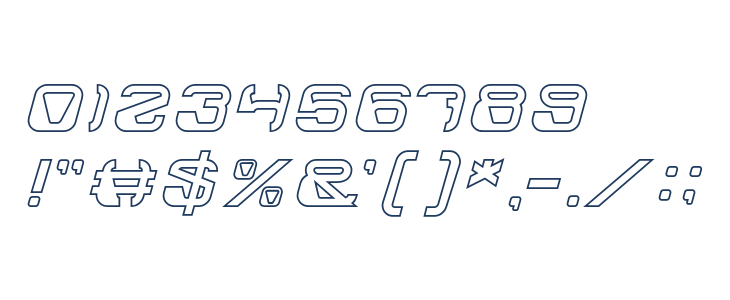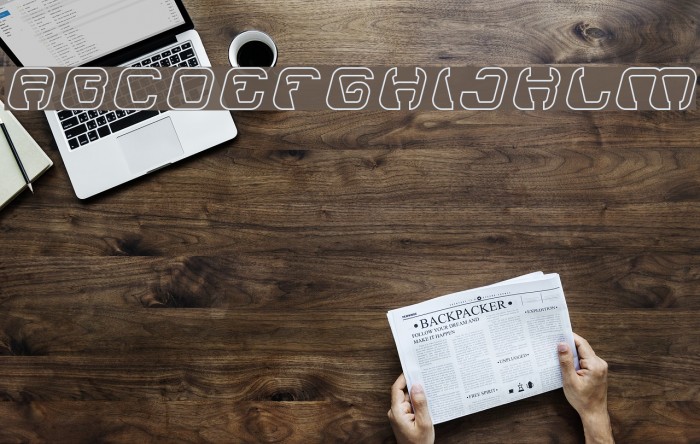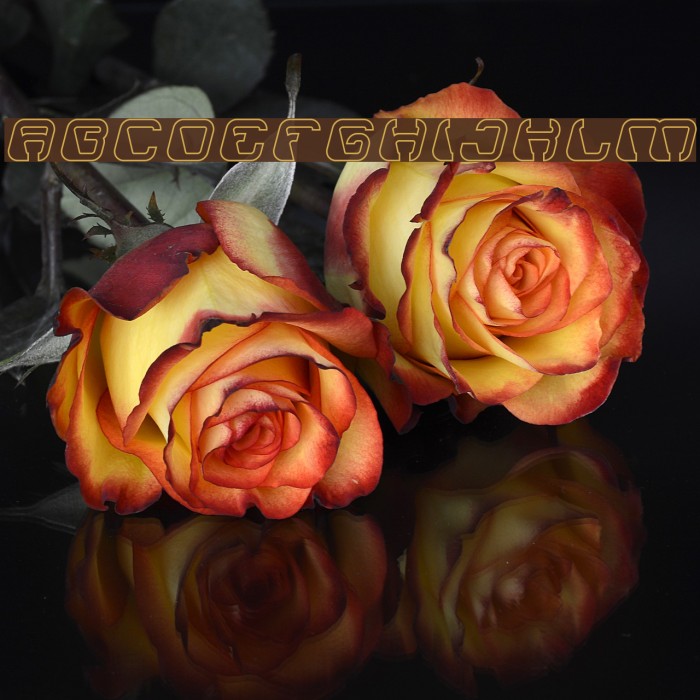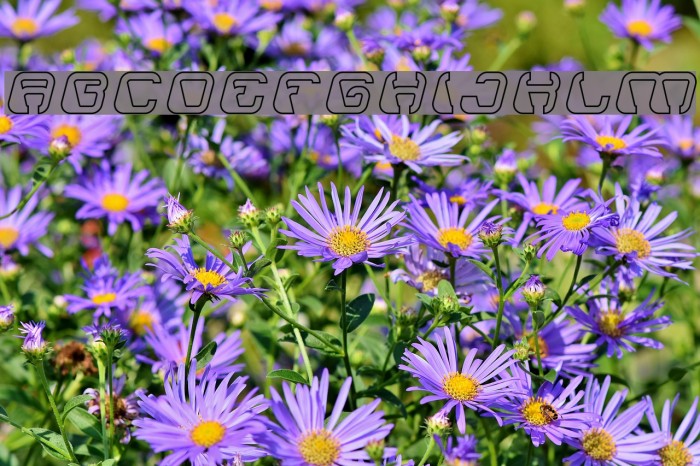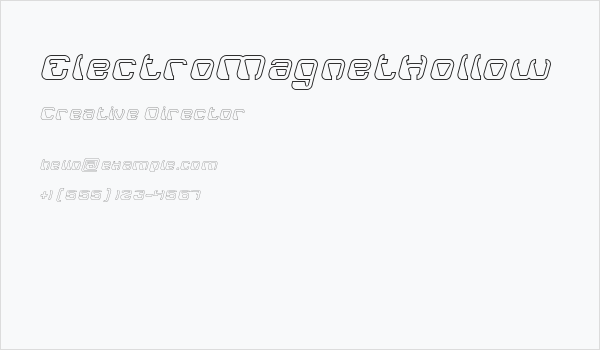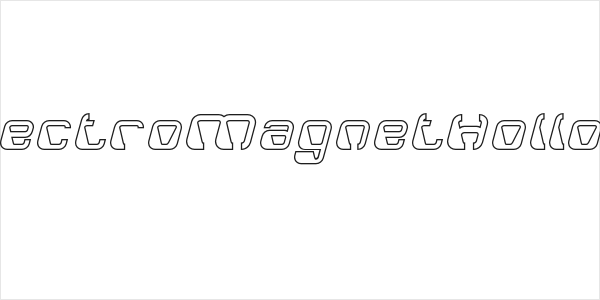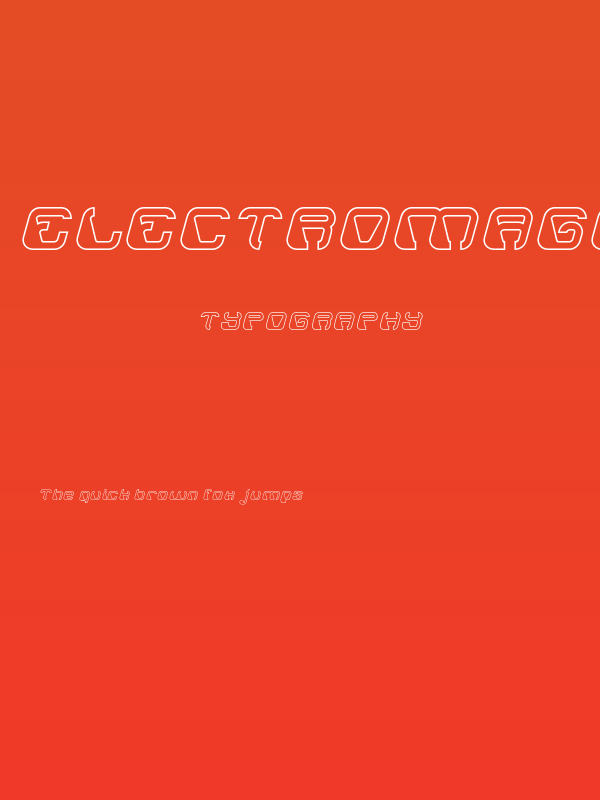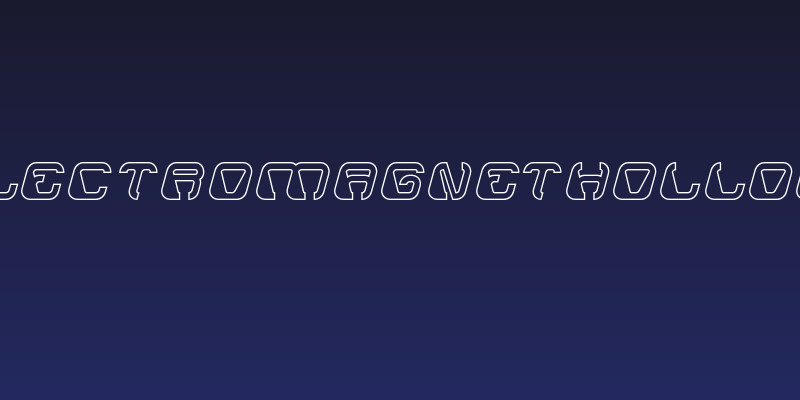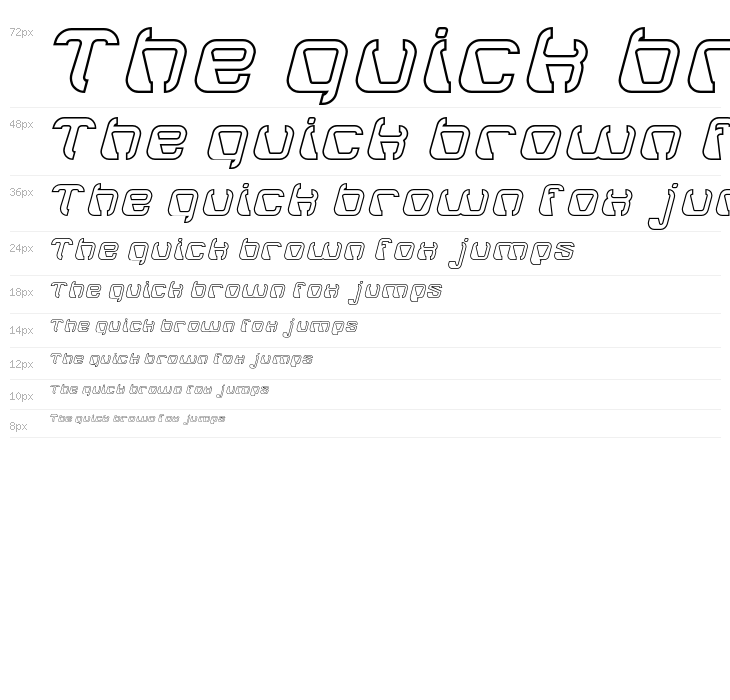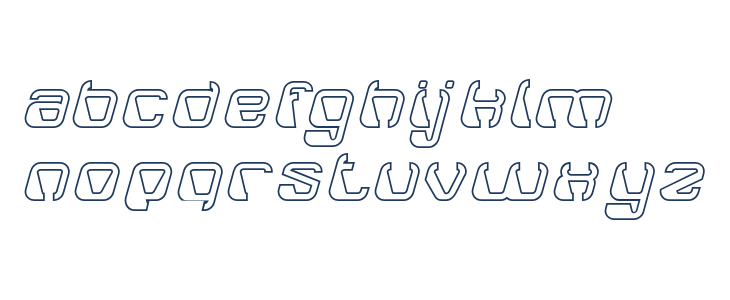
ElectroMagnetHollow Font
ElectroMagnetHollow Description
This font features a unique hollow design with a futuristic and geometric aesthetic. Each character is outlined, creating a sense of depth and dimension. The angular and structured form of the letters gives it a modern and tech-inspired look. The uppercase and lowercase letters maintain a consistent style, with clean lines and sharp edges. Numbers and special characters are designed to match the overall theme, providing a cohesive appearance across all glyphs. This font stands out with its bold presence and distinctive style, making it ideal for projects that require a modern and eye-catching typeface.
| Proposed Projects | Ideal for technology branding, sci-fi posters, video game titles, and modern logo designs. |